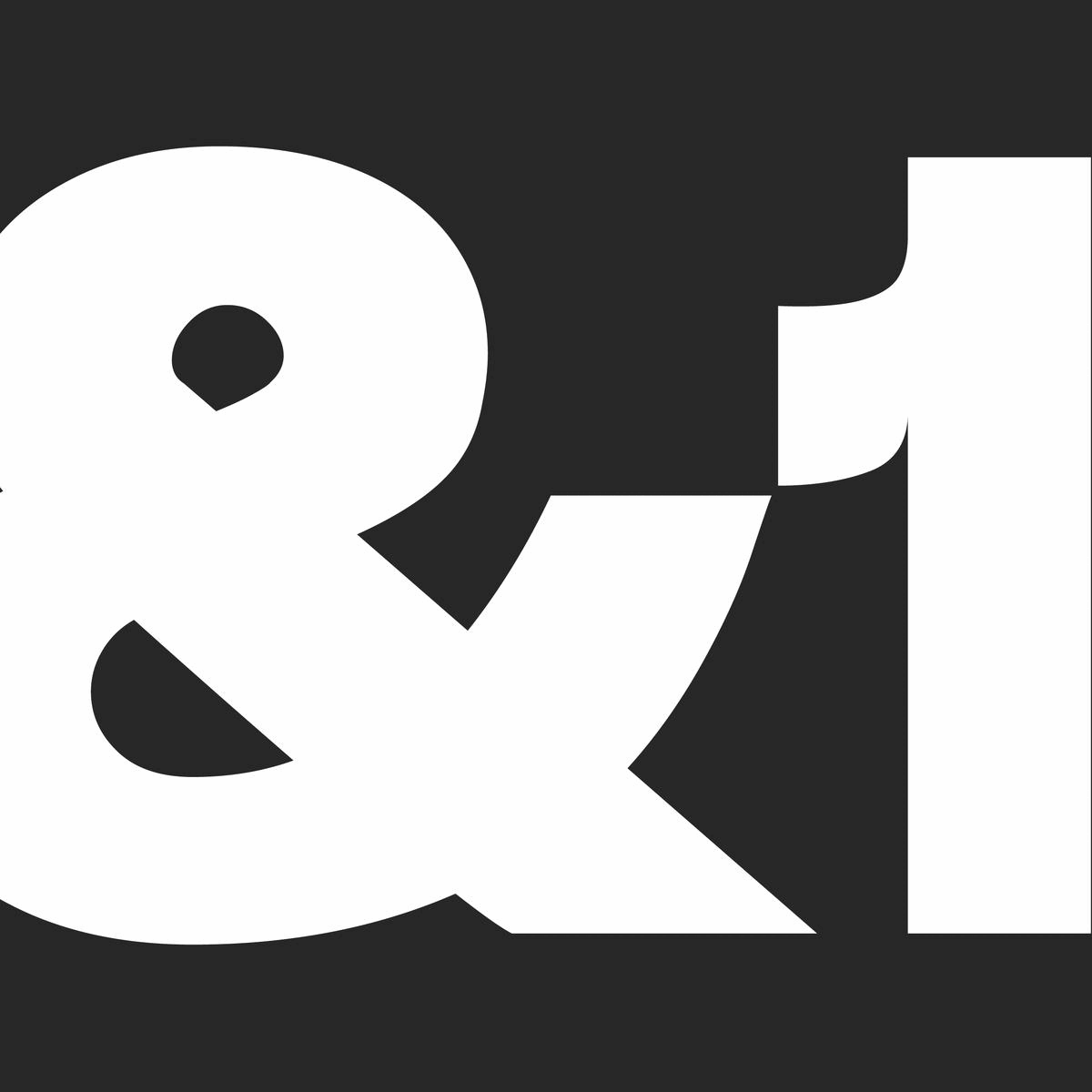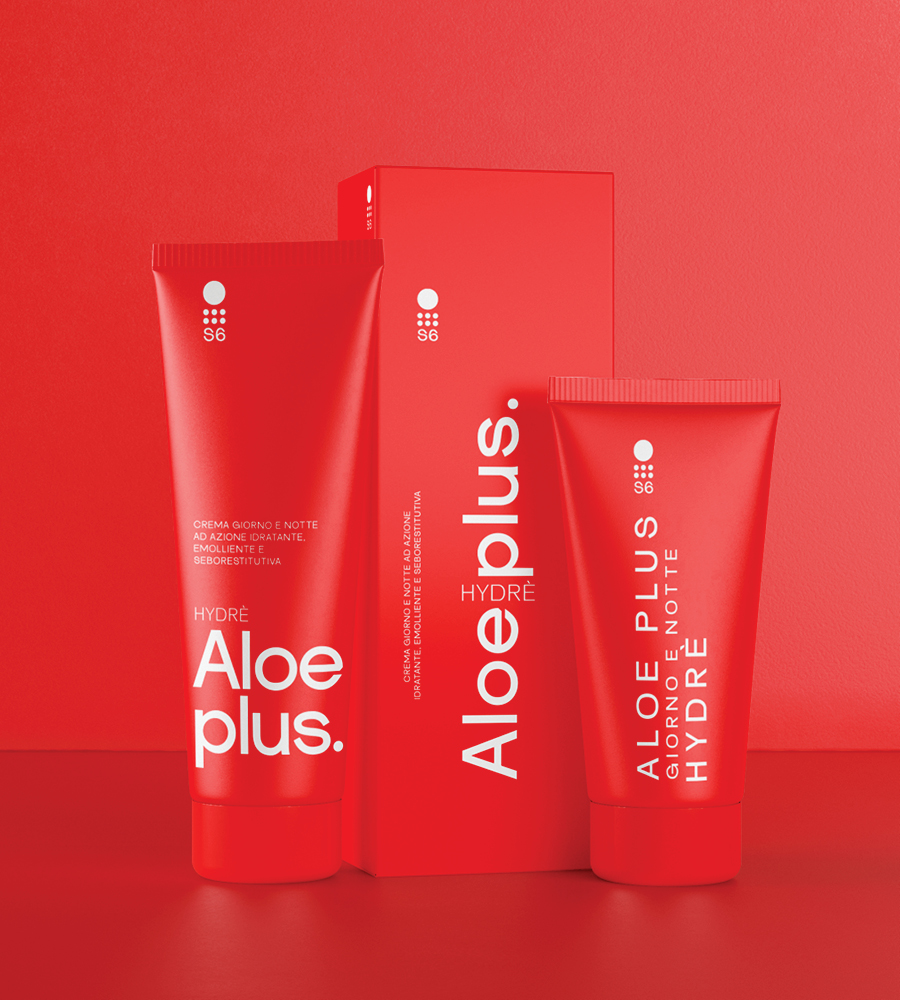
S6 Sans is a contemporary neo-grotesque sans-serif typeface with strong stylistic geometric contrasts. Its distinctive wide-open stance was designed to give the right visual consistency for branding and communications.
S6 Sans supports up to 75 different languages such as English, German, French, Turkish, Polish, Kurdish (Latin), Azerbaijani (Latin), Romanian, Dutch, Hungarian, Serbian (Latin), Czech, Kazakh (Latin), Swedish, Croatian, Finnish, Slovak, Danish, Lithuanian, Latvian, Slovenian, Irish, Estonian, Basque, Luxembourgian, and Icelandic in Latin and other scripts.